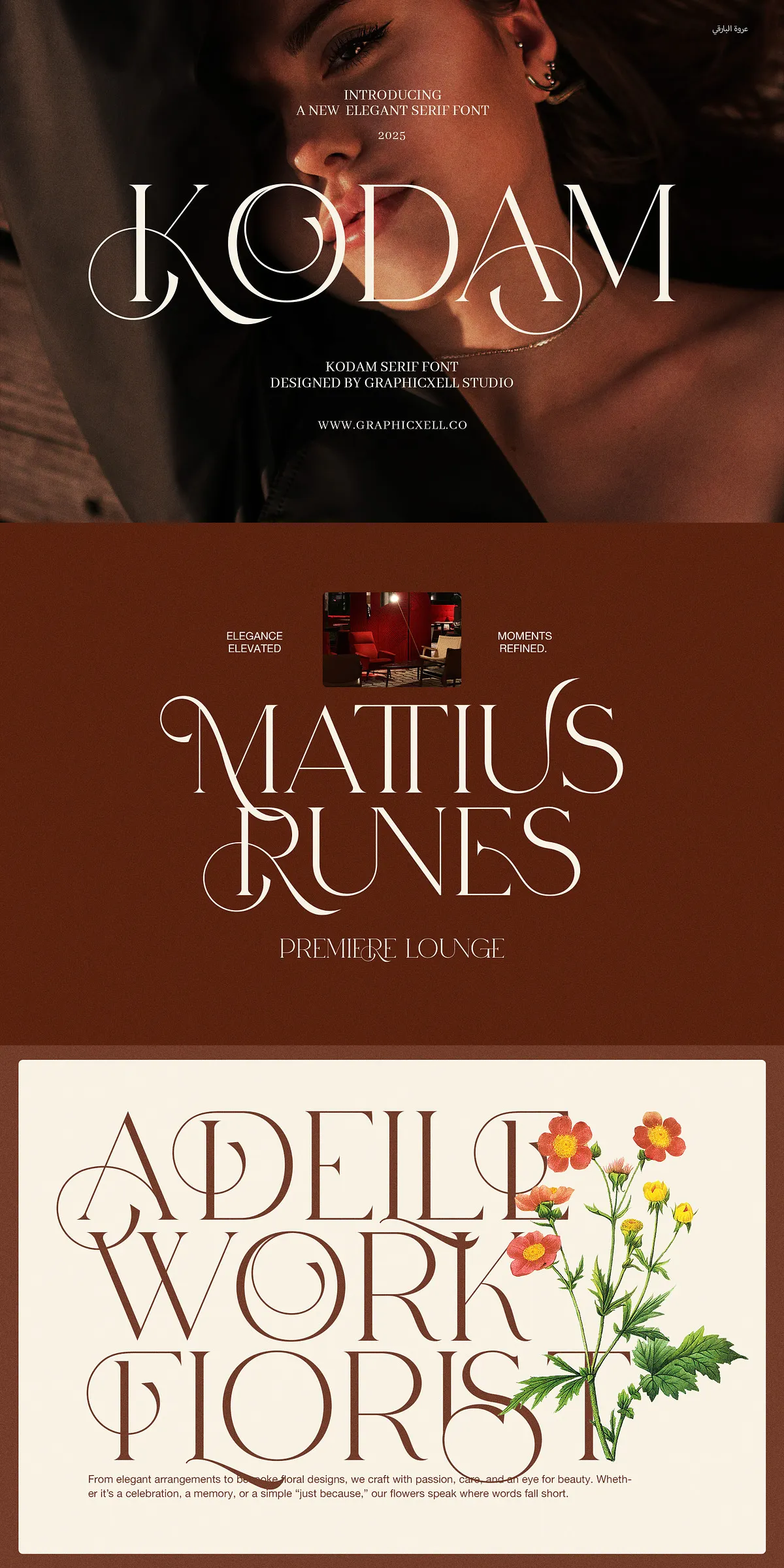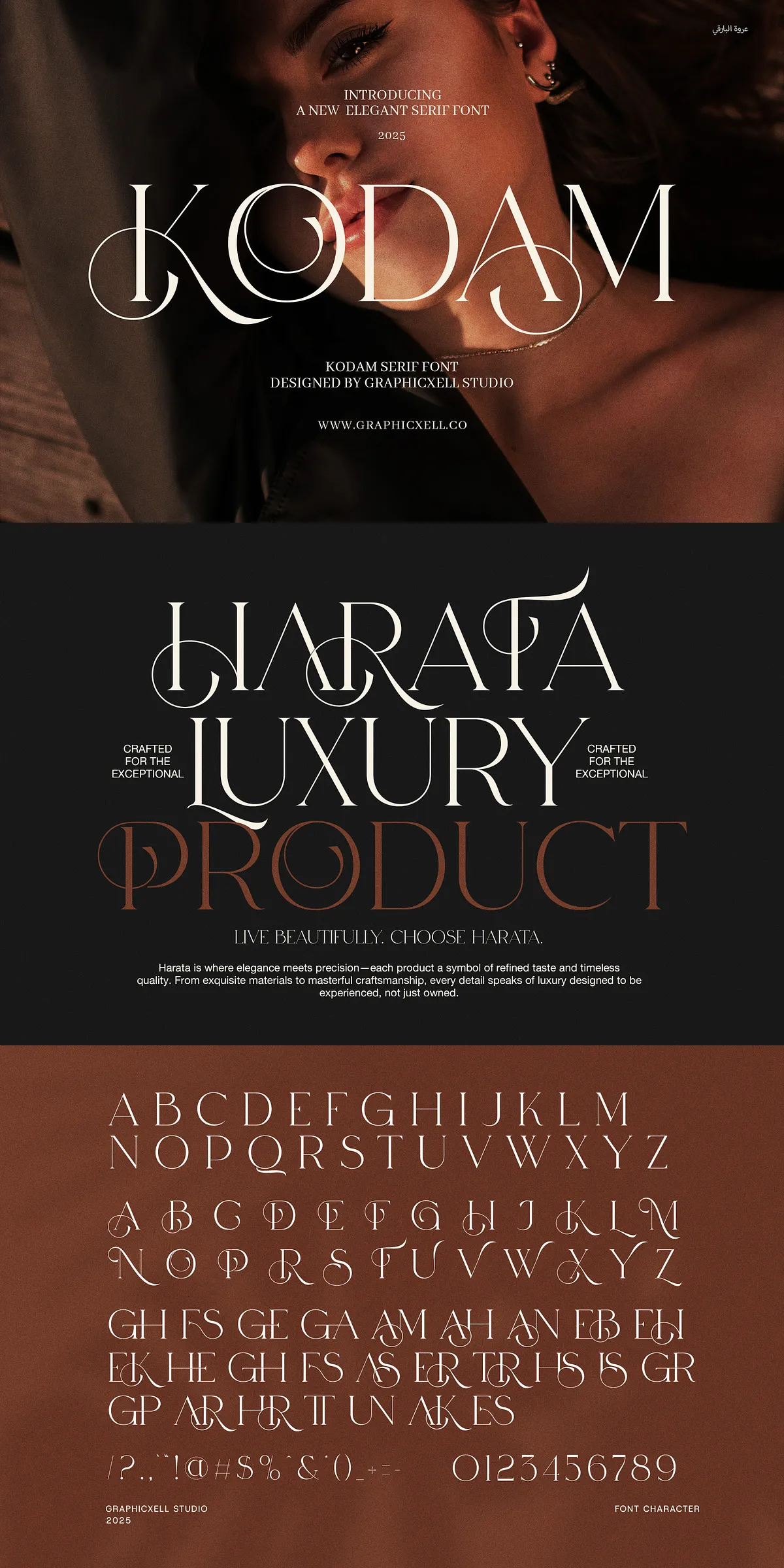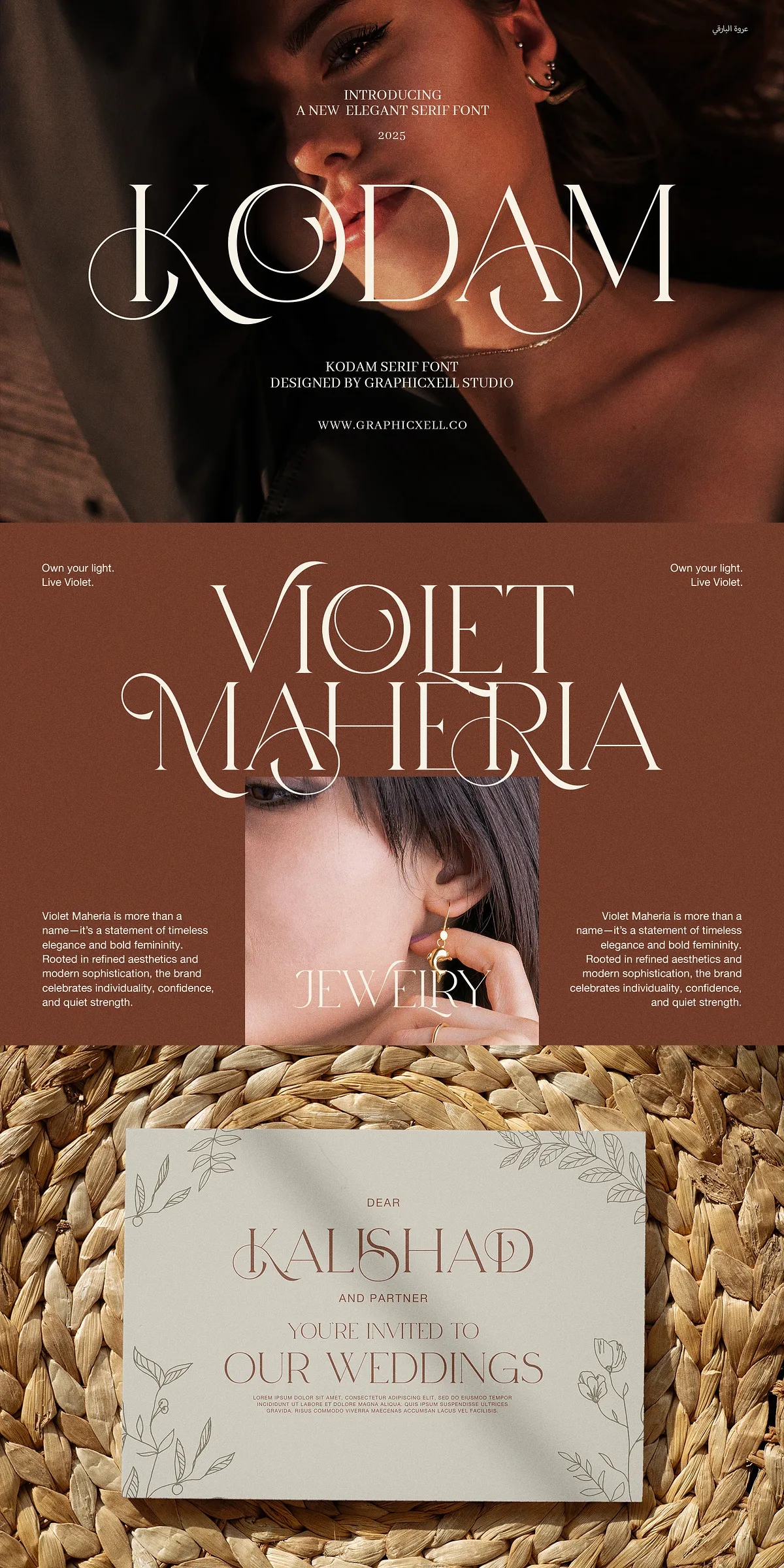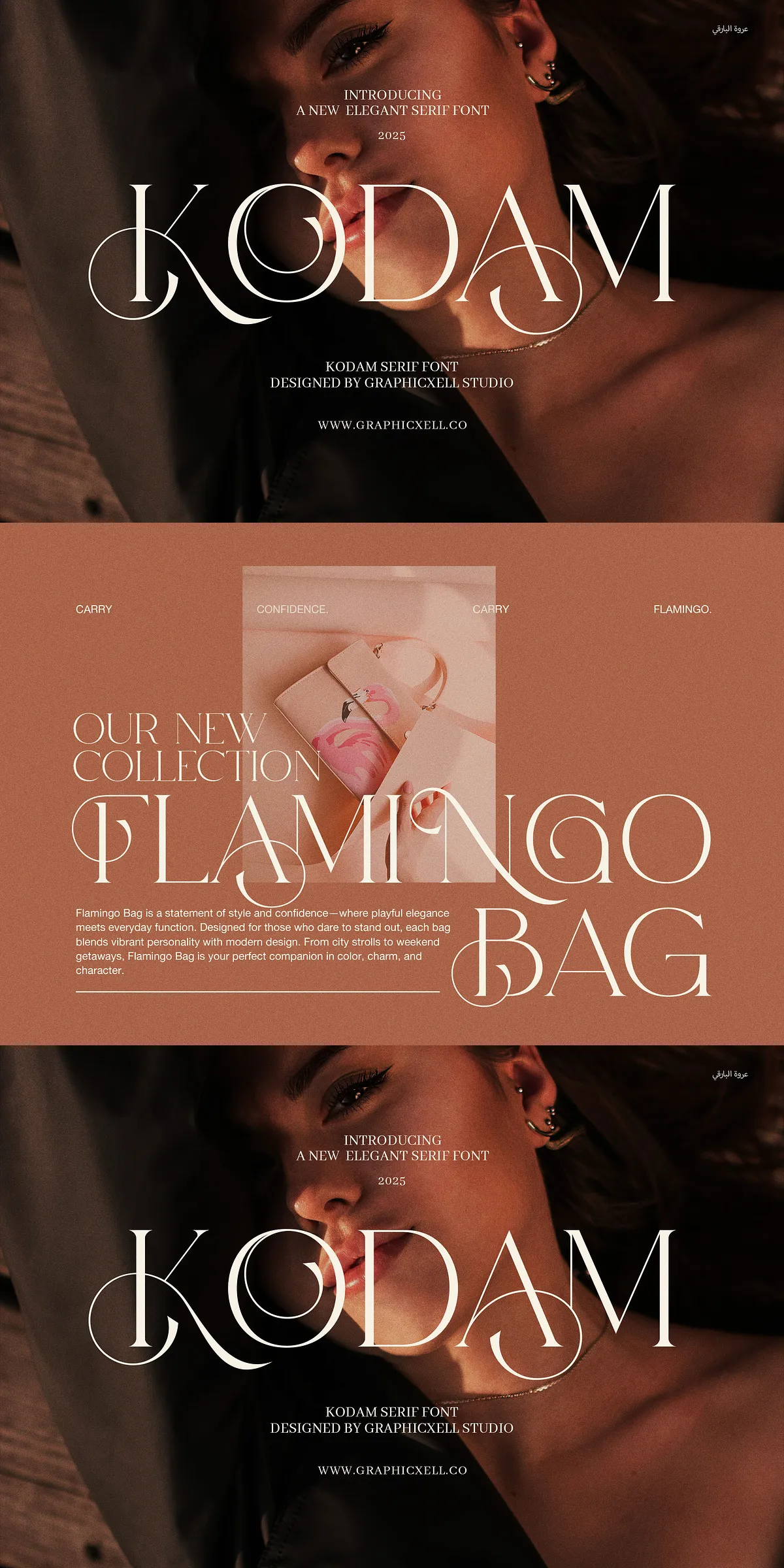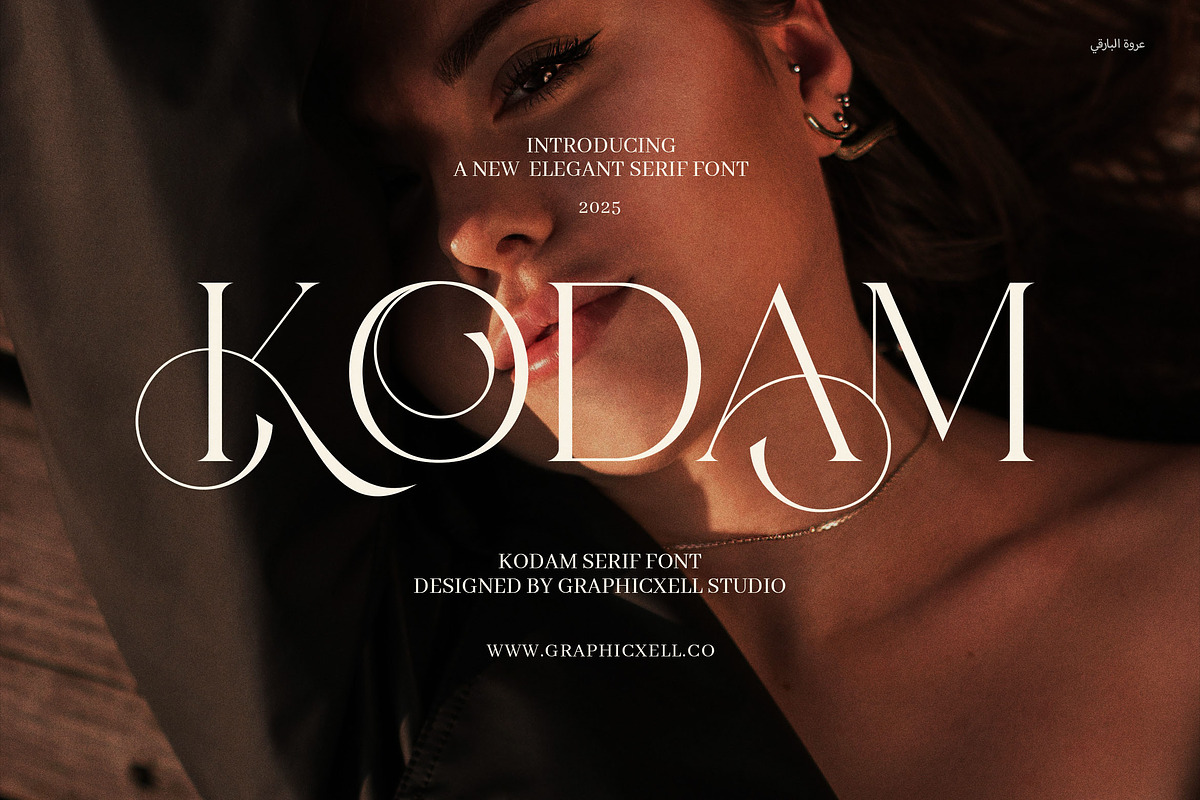
Step into a new era of typographic refinement with Kodam Stylish Serif, a thoughtfully crafted modern serif typeface that blends timeless grace with bold contemporary design. Each letterform is precision-engineered to exude confidence, creativity, and sophistication—perfect for designers who demand visual impact without sacrificing readability or versatility.
From sweeping serifs to delicately balanced spacing, Kodam delivers a harmonious fusion of structure and fluidity. Whether you’re designing a high-fashion brand identity, an elegant product label, or a minimalist website layout, Kodam adds an instant touch of luxury and presence to every project.
Why Kodam Stands Out in a Crowd of Serifs
Beyond its visual appeal, Kodam is designed with purpose—offering robust functionality across digital and print media. Its advanced design principles ensure optimal clarity at all sizes and resolutions, making it ideal for head-to-toe branding applications.
- Refined Serif Design – Smooth, expressive serifs with subtle contrast create a polished, high-end aesthetic.
- Enhanced Readability – Thoughtful letter spacing and consistent stroke weights maintain legibility even in dense body text.
- Full Character Set – Includes uppercase and lowercase letters, numerals, punctuation, diacritics, and multilingual support (Latin, Greek, Cyrillic, and more).
- OpenType Features – Access to stylistic alternates, ligatures, and contextual swashes via supported design software.
- Adaptable to Scale – Looks stunning as a bold headline or as refined body copy—perfect for diverse layout needs.
Where Kodam Elevates Your Creative Vision
Kodam effortlessly transforms any project into a statement piece. It’s not just a font—it’s a catalyst for storytelling through typography. Use it to:
- Create unforgettable logos and brand identities for fashion houses, boutiques, and lifestyle brands
- Design editorial spreads for beauty, fashion, and lifestyle magazines
- Develop luxury product packaging with artisanal appeal
- Build elegant websites and landing pages for high-end portfolios and creative studios
- Compose wedding invitations, stationery, and event branding with a refined, romantic tone
- Enhance promotional materials such as lookbooks, advertisements, and social media content
Designed for Professionals, Built for Performance
Typography with Purpose: More Than Just a Font
Kodam isn’t merely a tool—it’s a design philosophy. It speaks softly but lingers long. Where boldness fades, elegance remains. Where simplicity dominates, refinement prevails. This is the kind of font that turns a simple message into a memorable experience.
It’s designed for creatives who care about every line, every space, every character. For those who understand that typography isn’t just about reading—it’s about feeling.
Make Your Project Unmistakably Yours
Stop relying on generic typefaces that blend into the background. With Kodam Stylish Serif, your work stands out—not because it shouts, but because it speaks with quiet confidence, refined taste, and undeniable character.